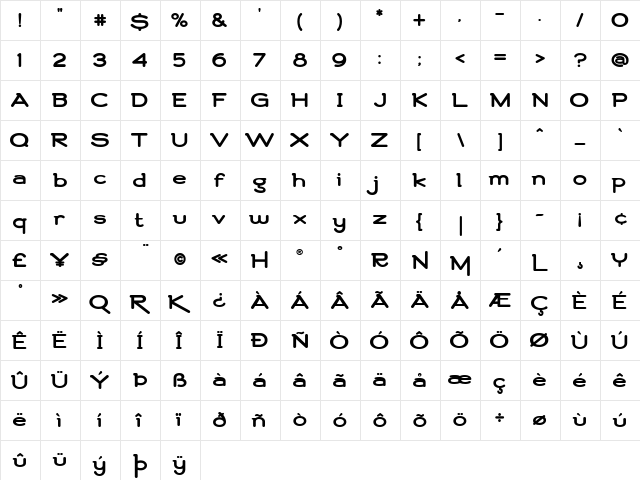
LHF Roper Regular Font Preview
LHF Roper Regular
LHF Roper Regular Font Details
Design Context for LHF Roper Typeface
LHF Roper takes a measured approach to typography — its balanced proportions and neutral character make it a reliable workhorse for both digital and print work.